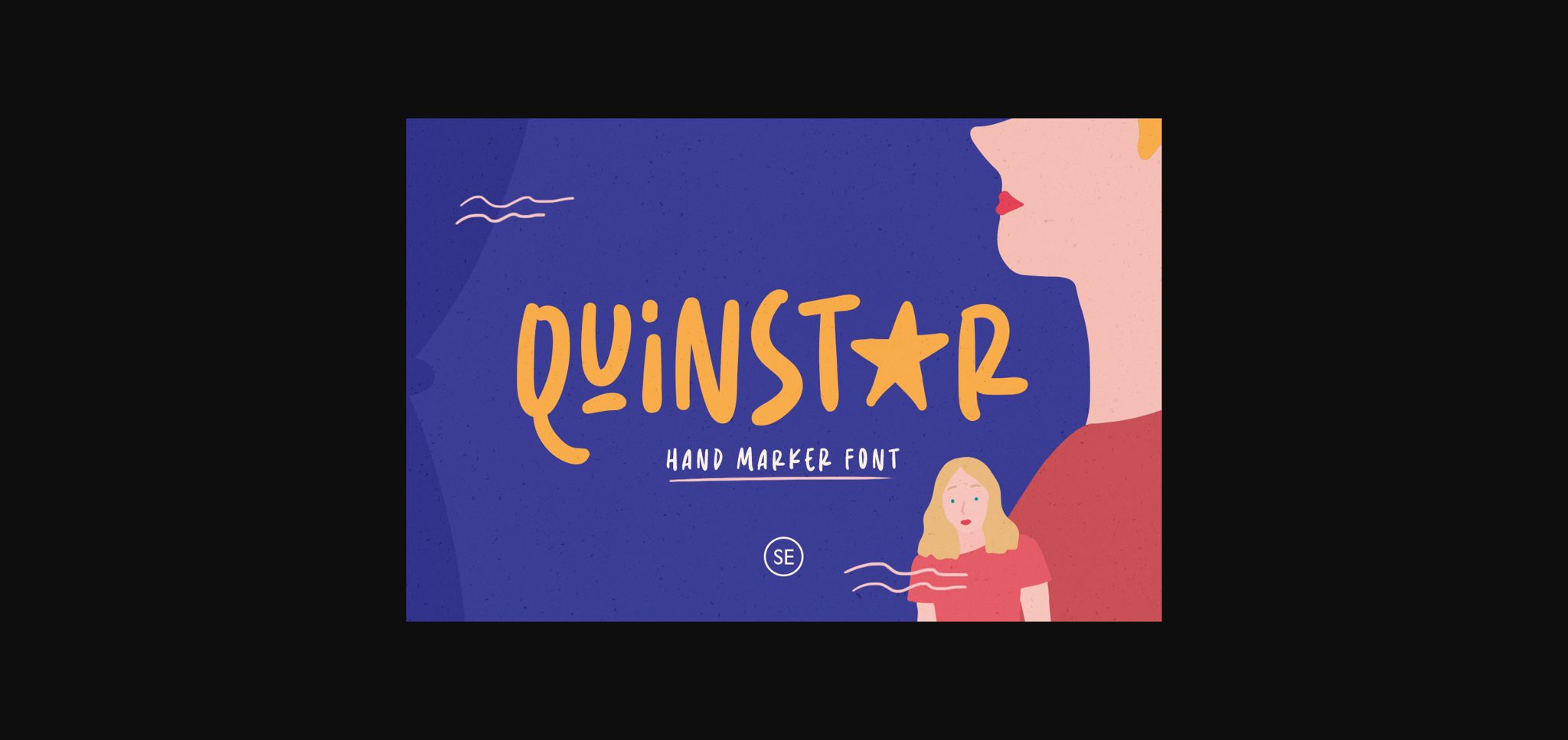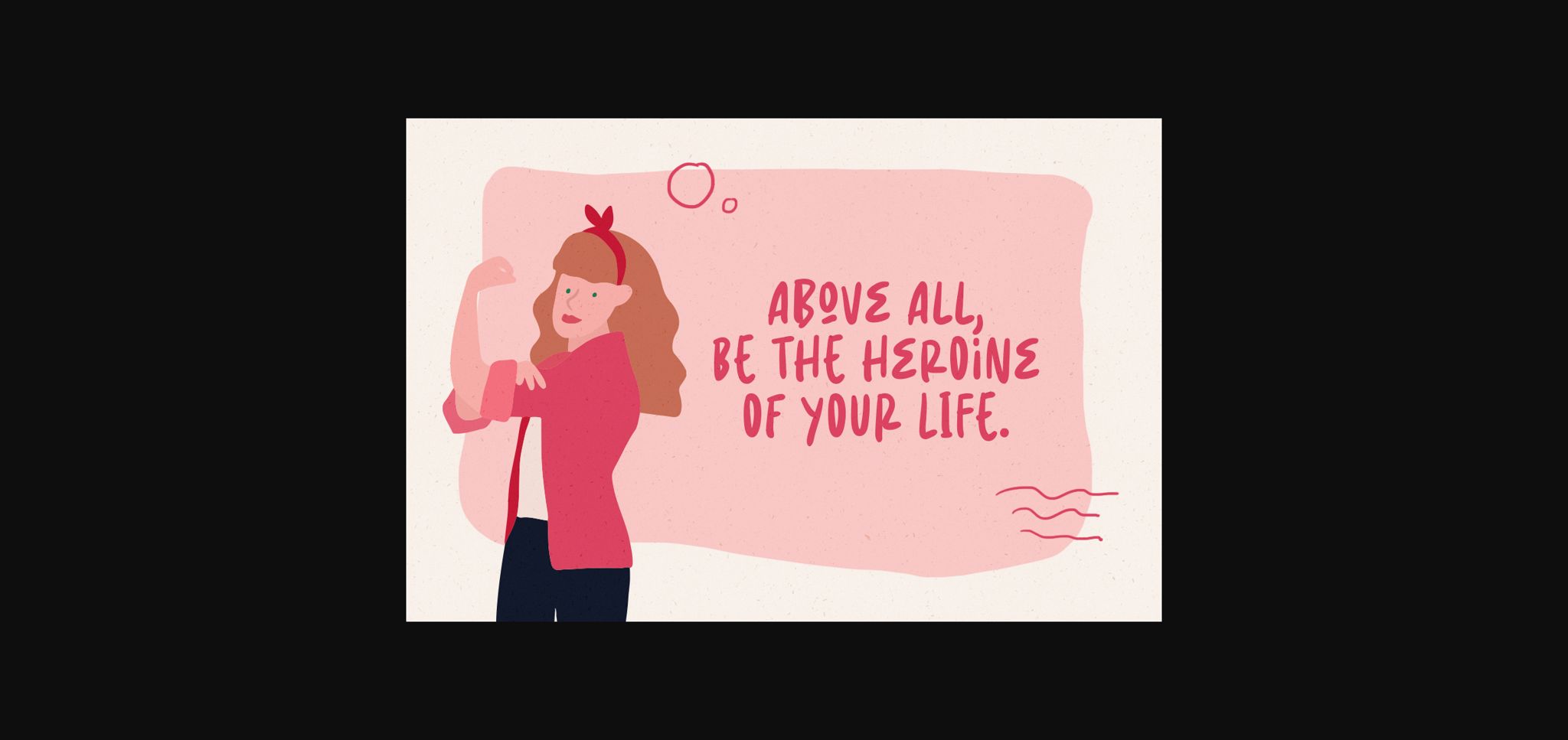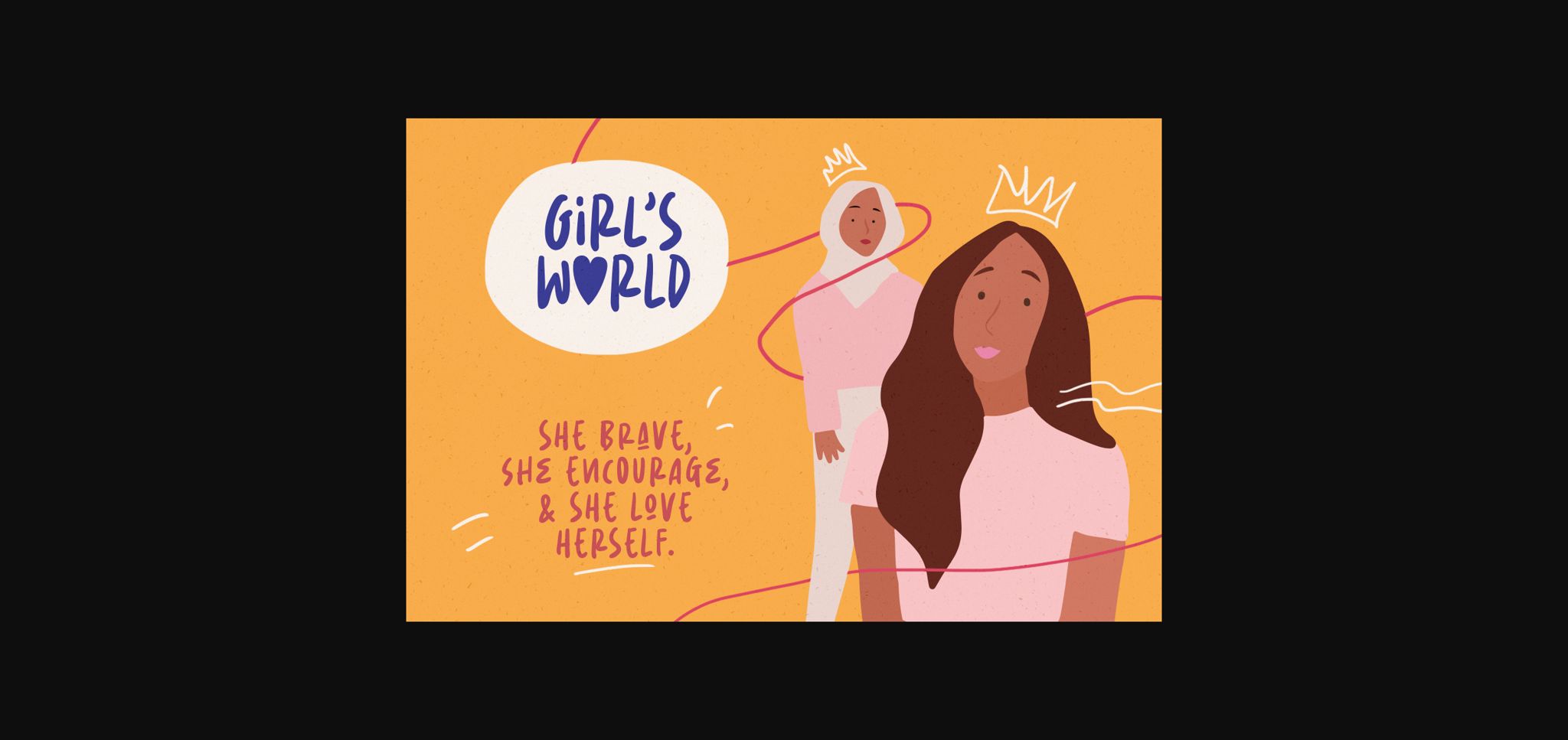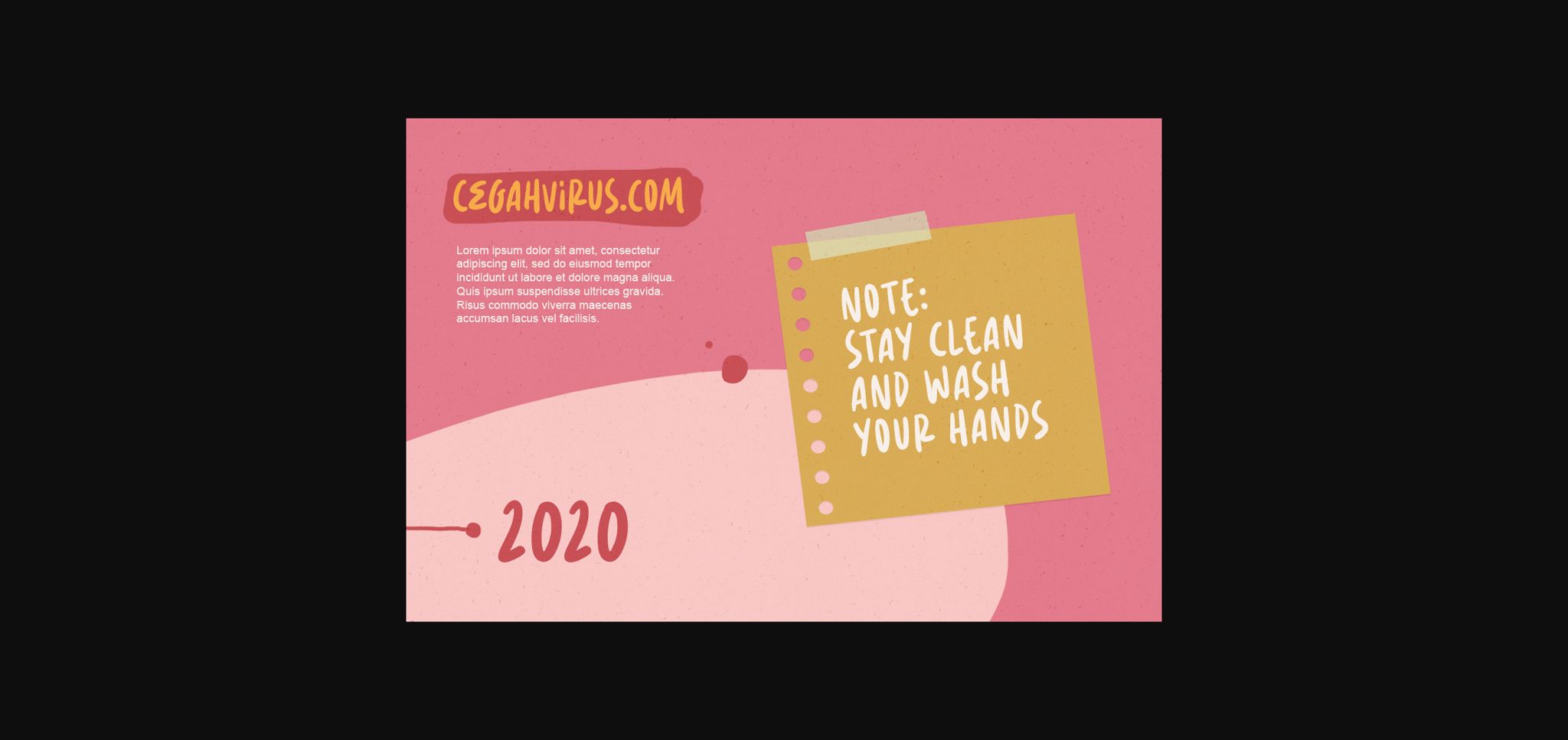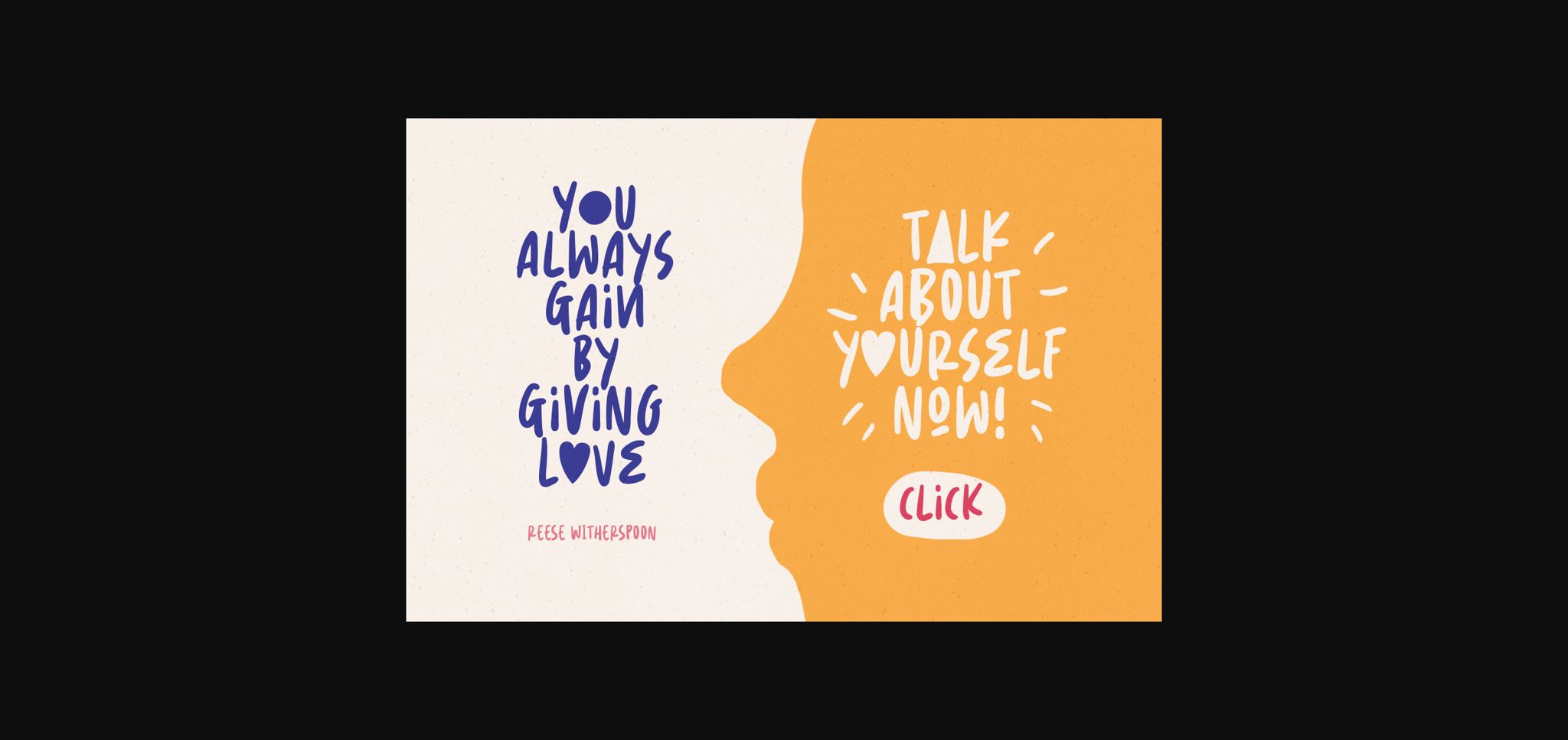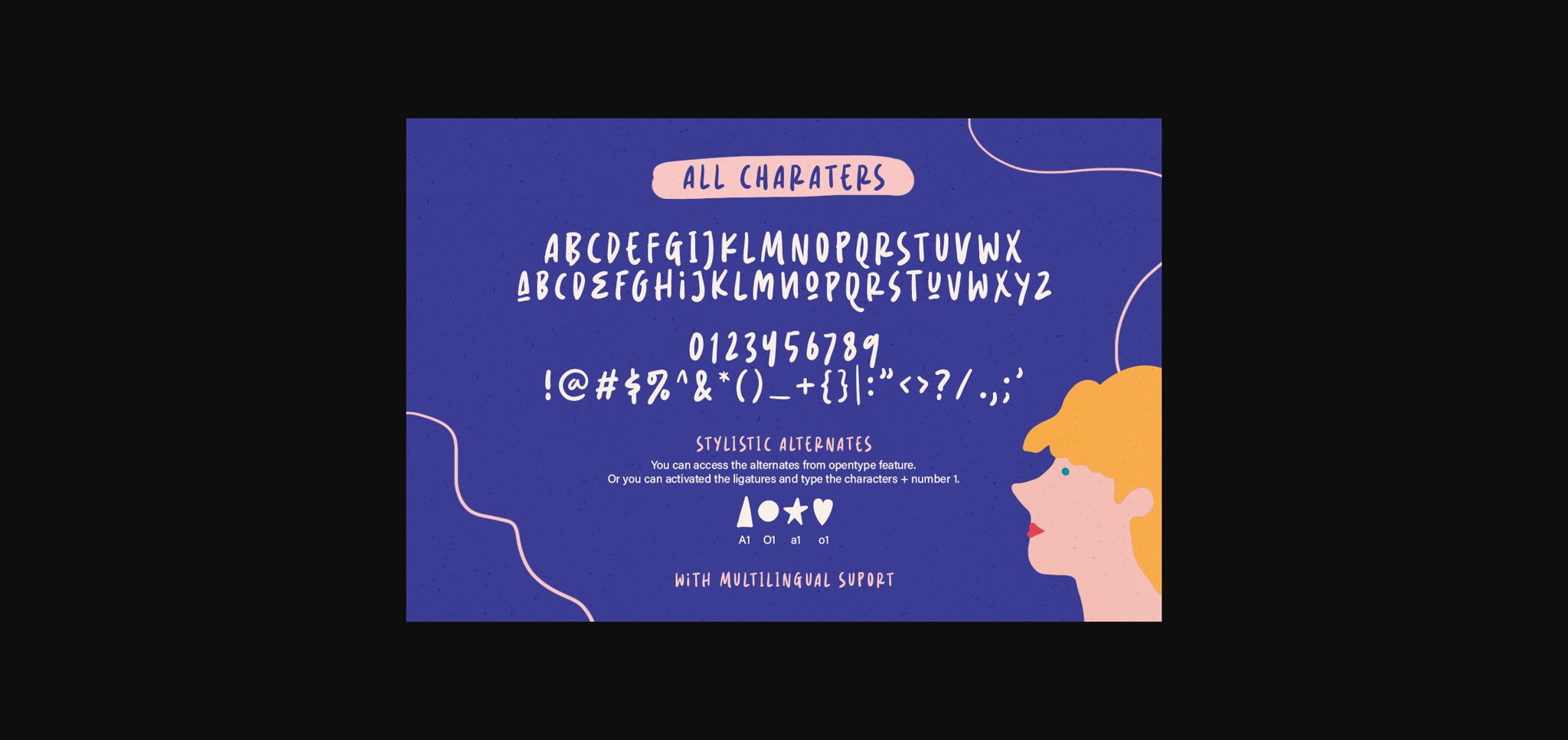
Quinstar Font
Quinstar results out of a stunning pairing of a brush pen and pencil that makes it look incredibly endearing and authentic. Use this gorgeous and unique sans serif font to bring any DIY project to life!